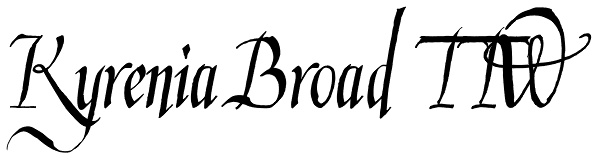
Kyrenia
Calligraphic font born from mixing chancery cursive strokes with some copperplate gestures. Kyrenia is the italic counterpart of Agony TTW. You can combine Kyrenia’s four different styles to create the illusion of handmade, along with a lot of...
Kyrenia Swash TTW
Kyrenia Quill TTW
Kyrenia Broad TTW
Kyrenia Monster TTW
Kyrenia Pro TTW